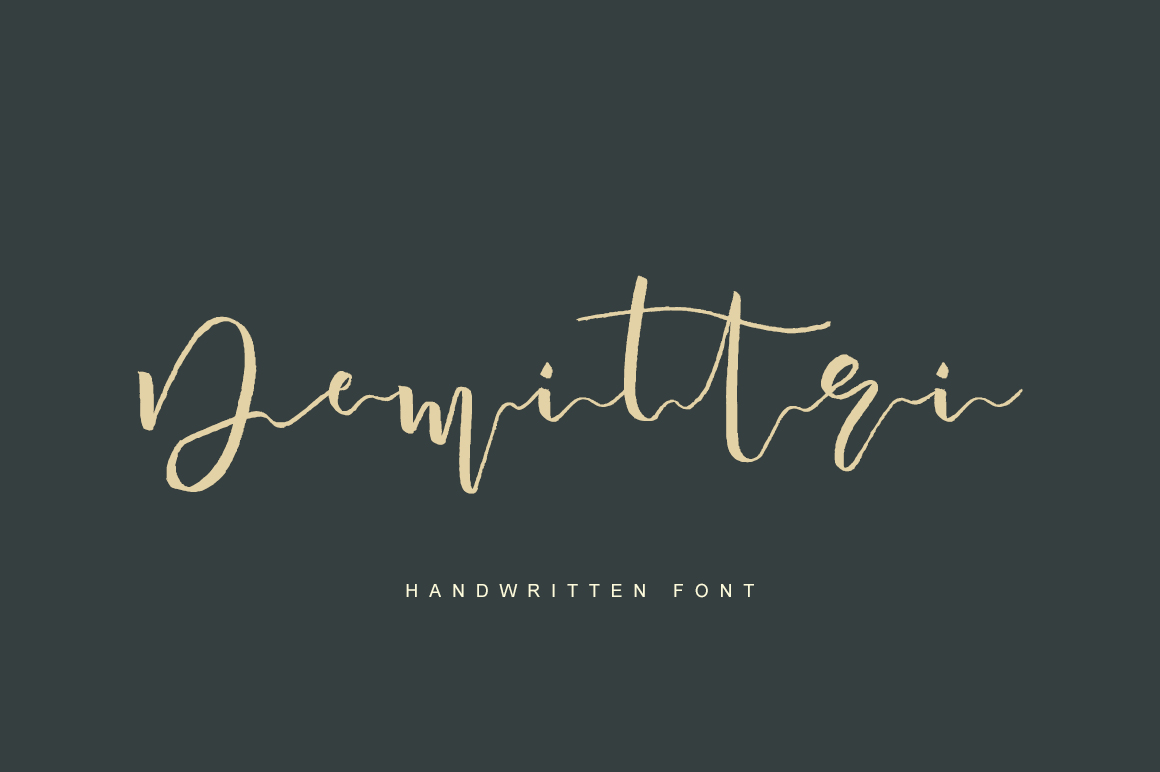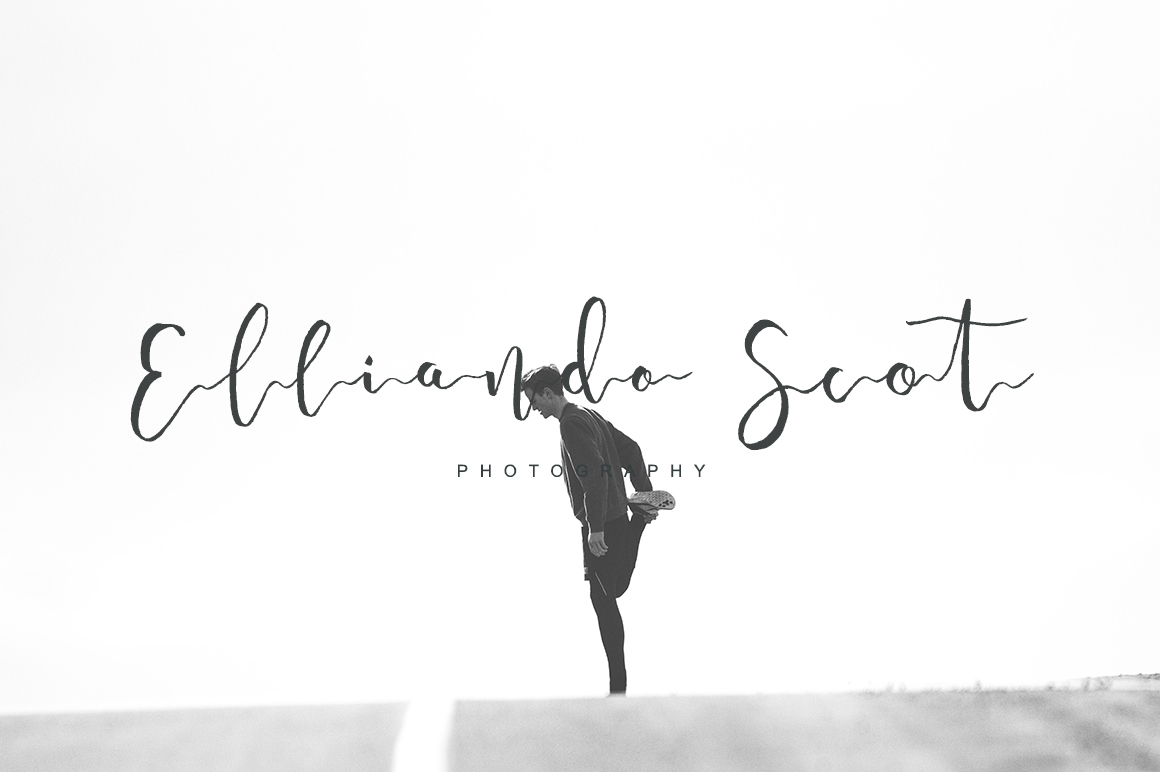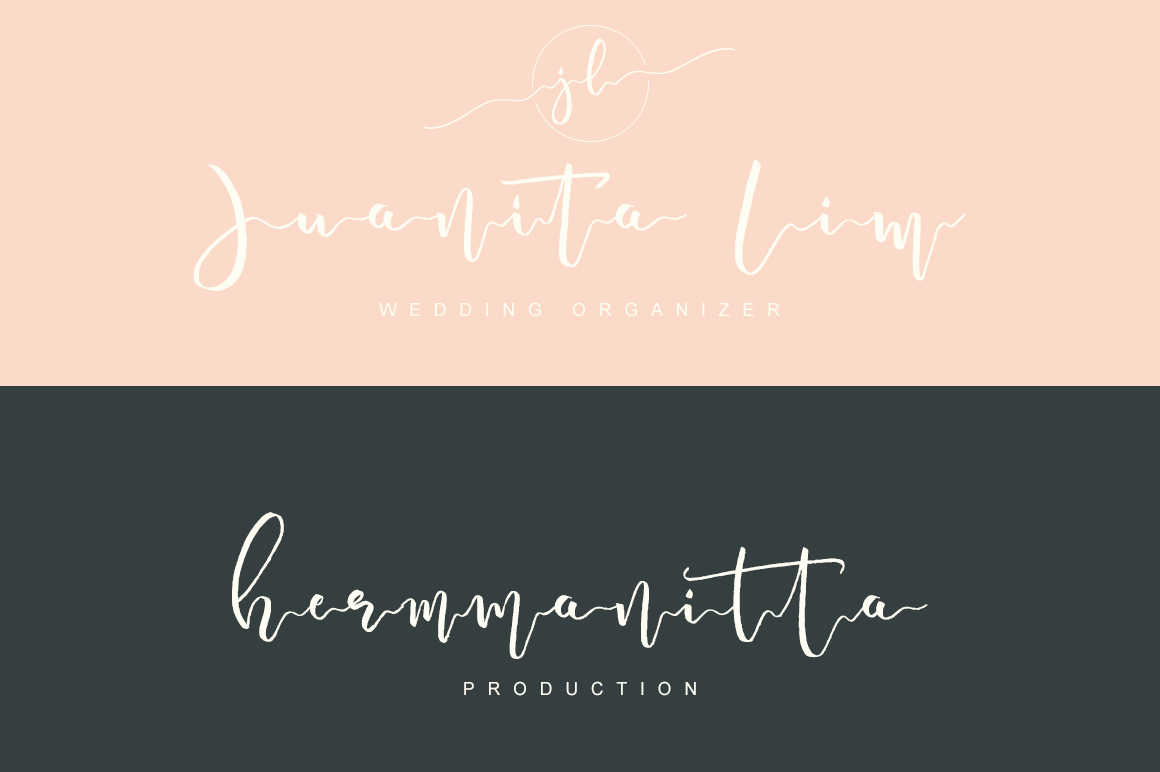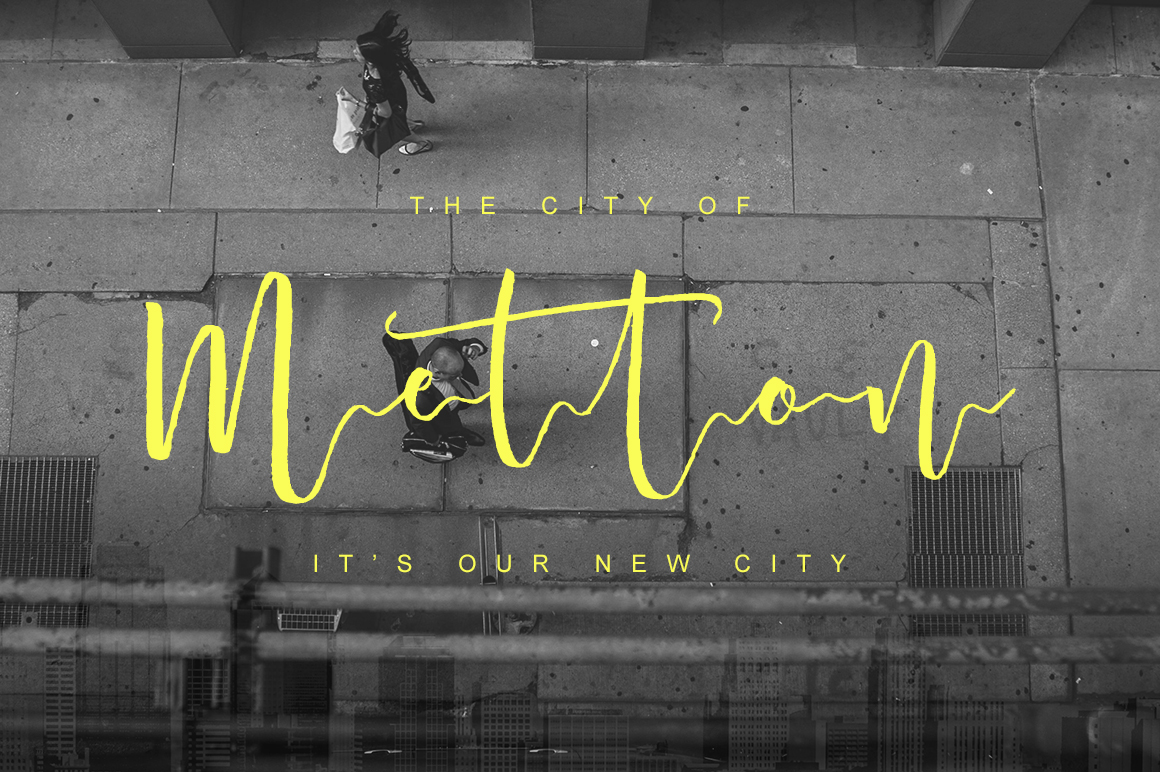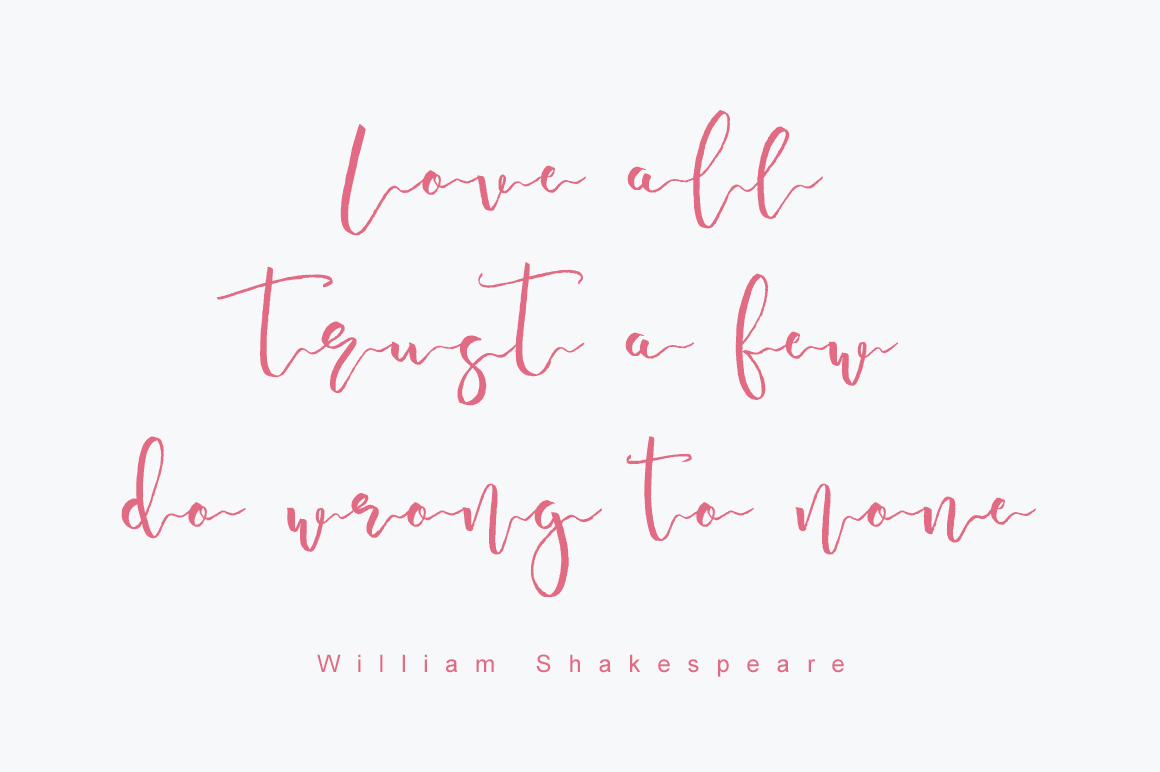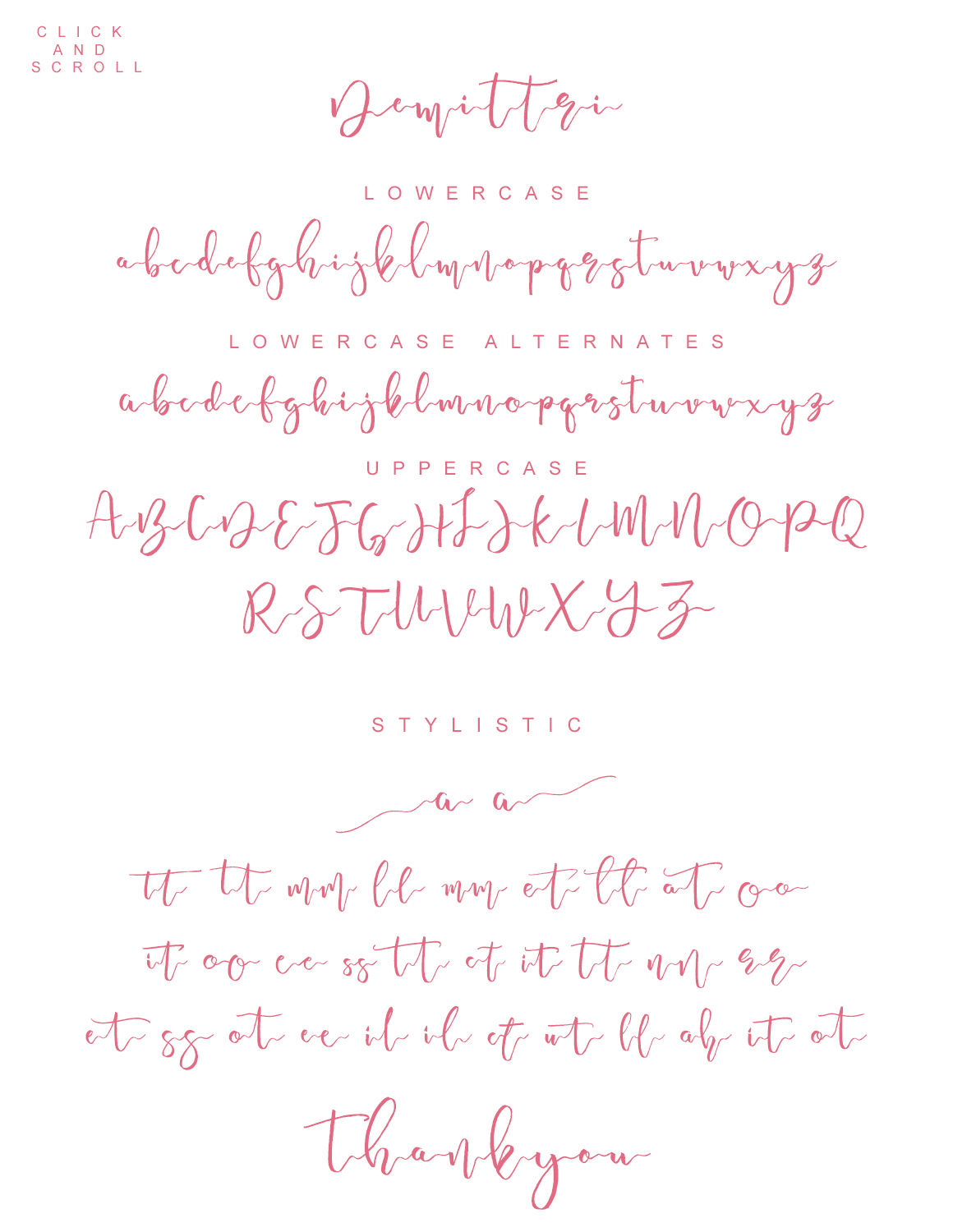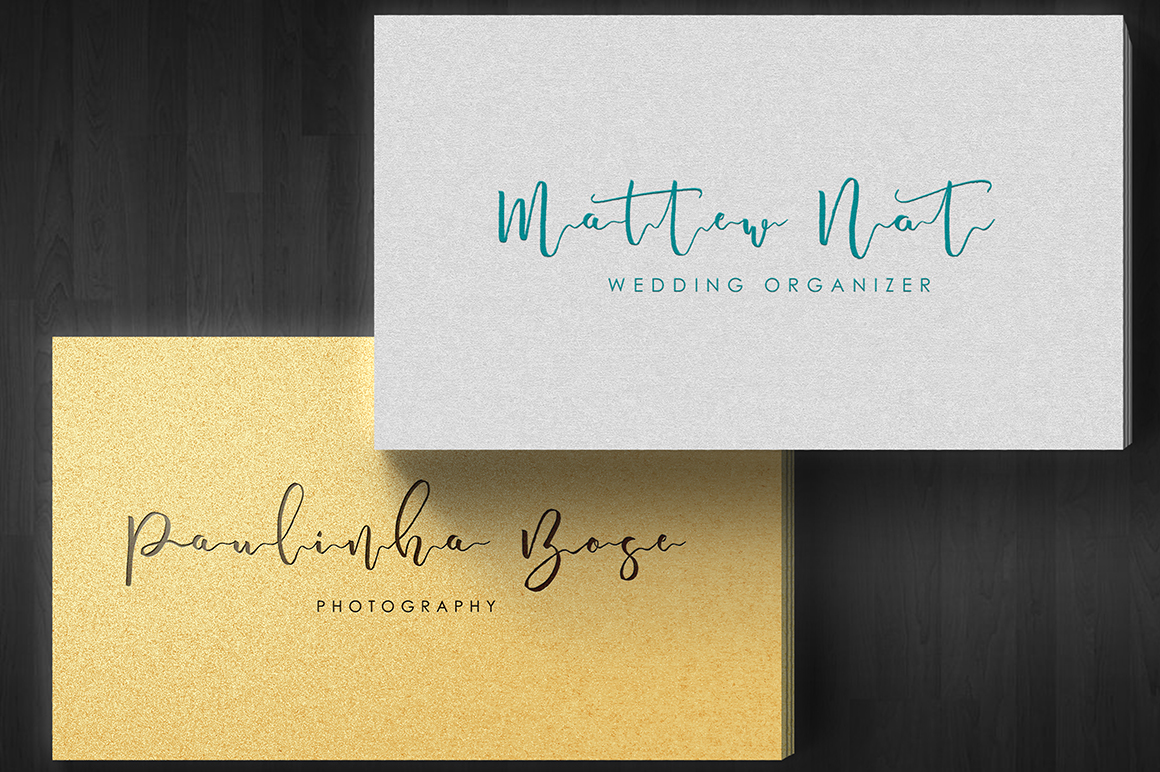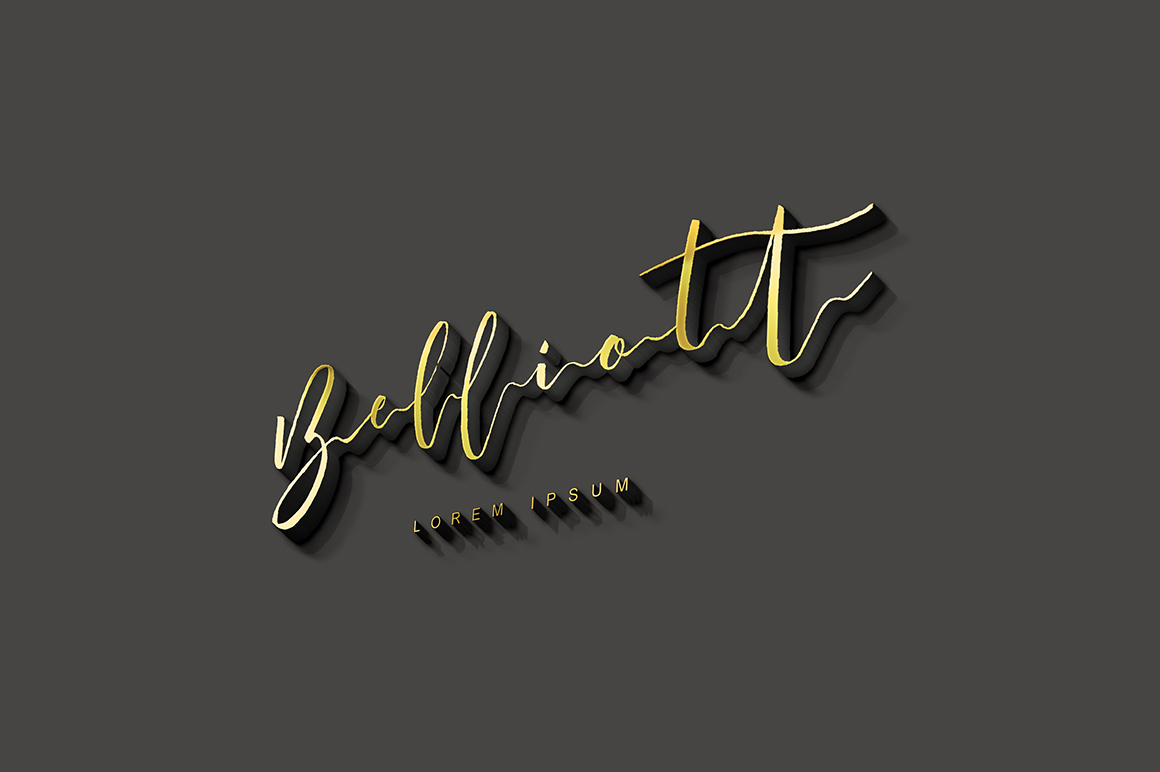
Demittri Font
About Demittri Font
Demittri is a modern script font where every single letter has been carefully crafted by hand to create a coherent look & feel.
The modern script style will work great in many types of projects.